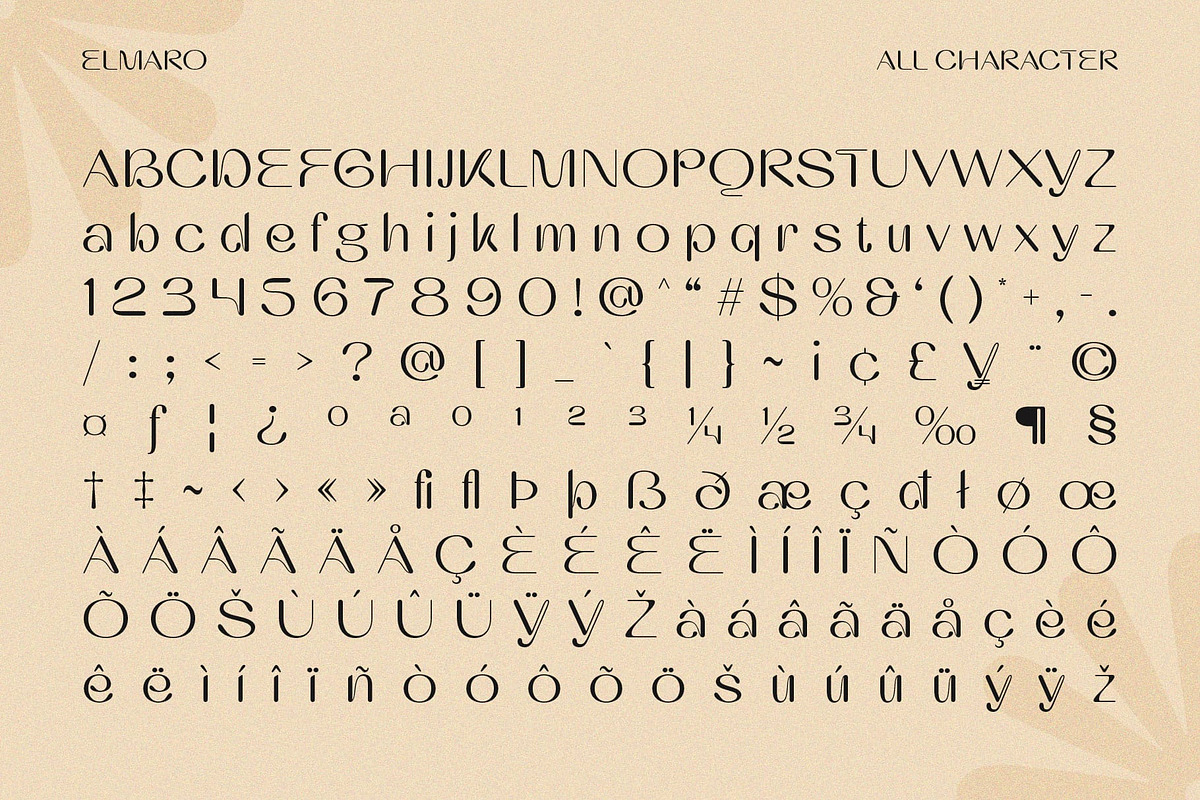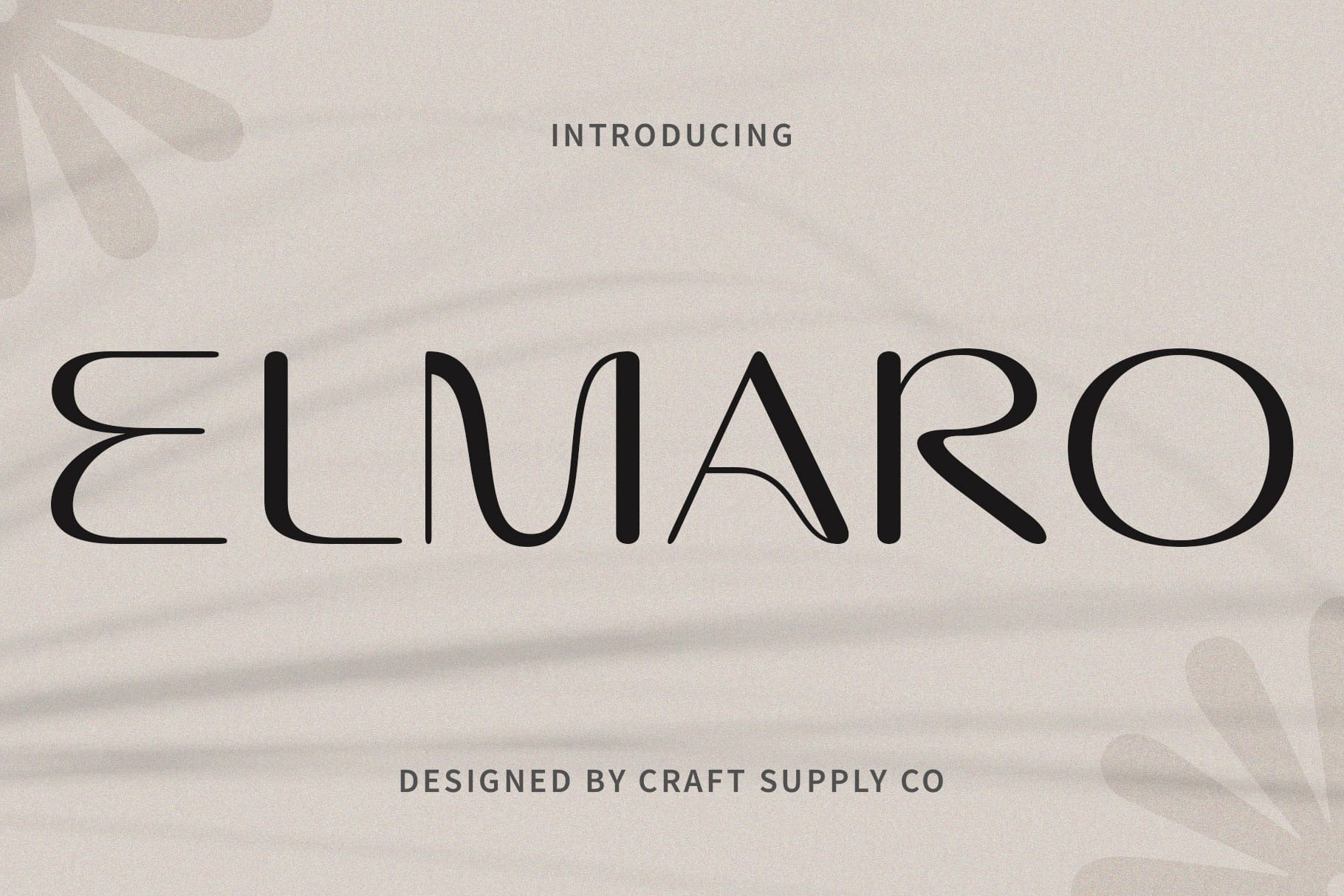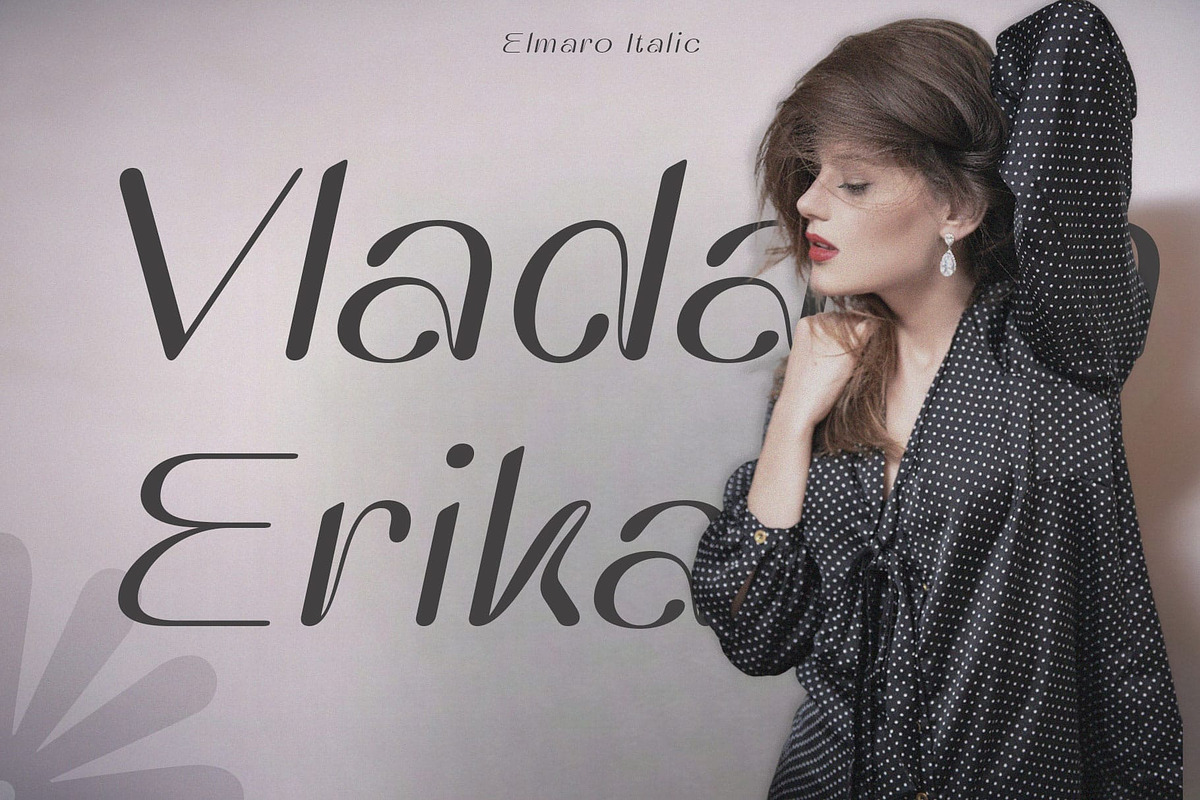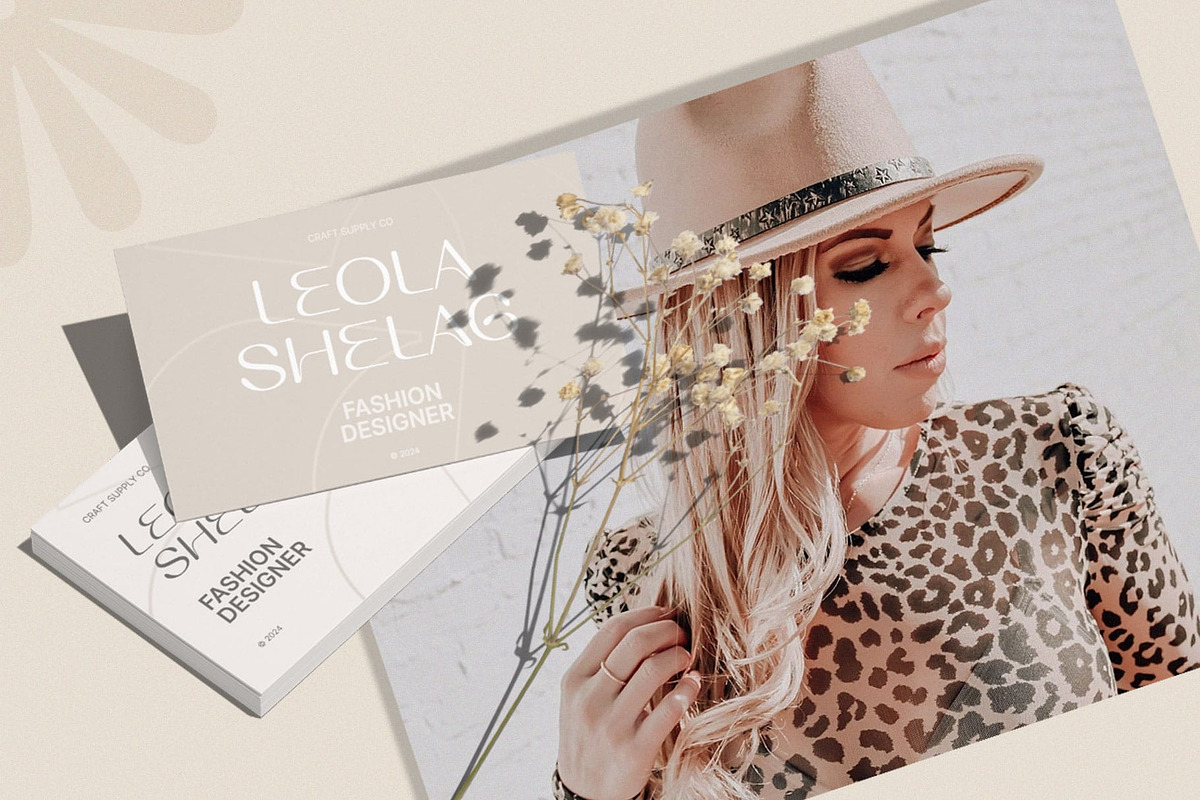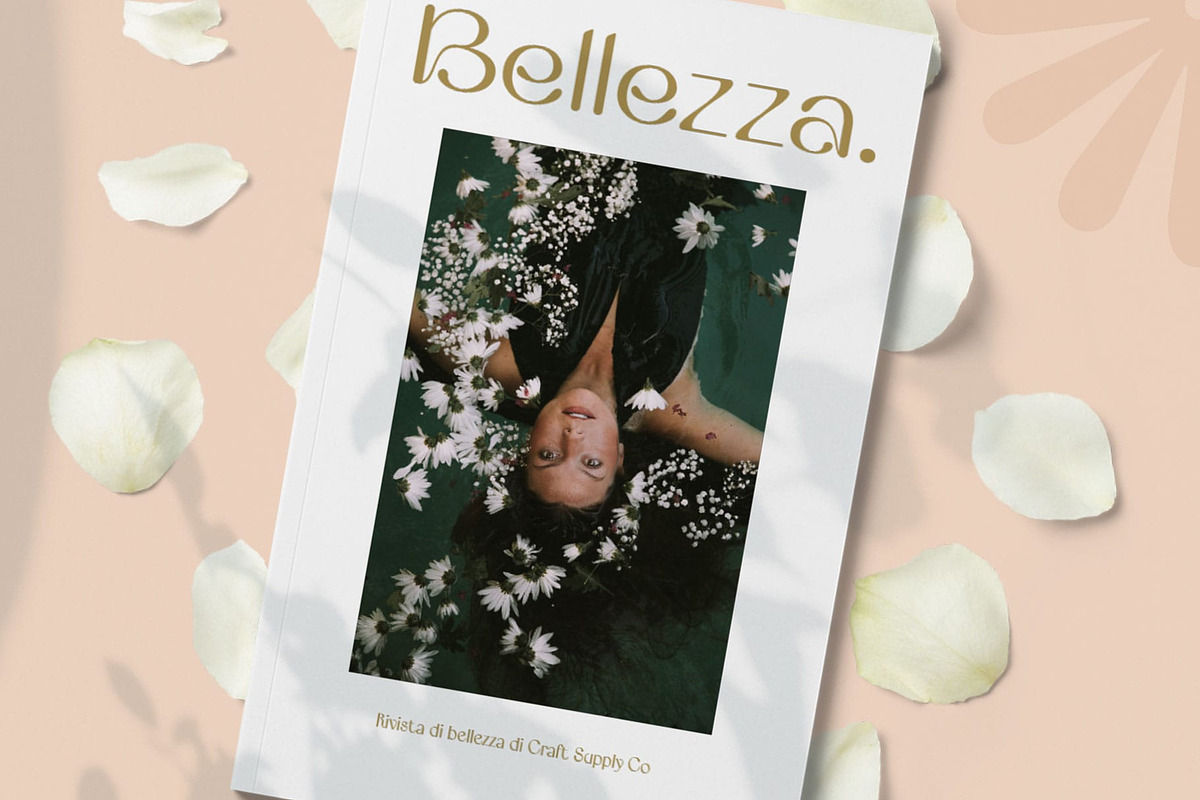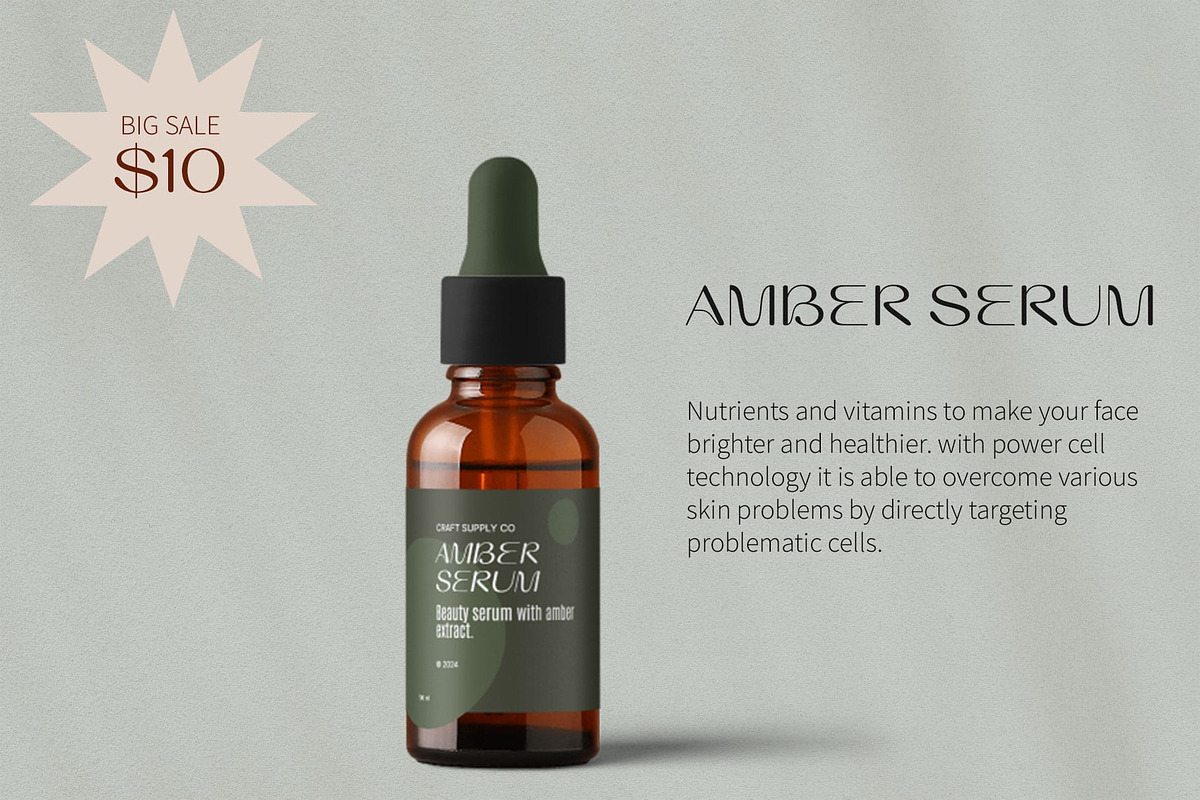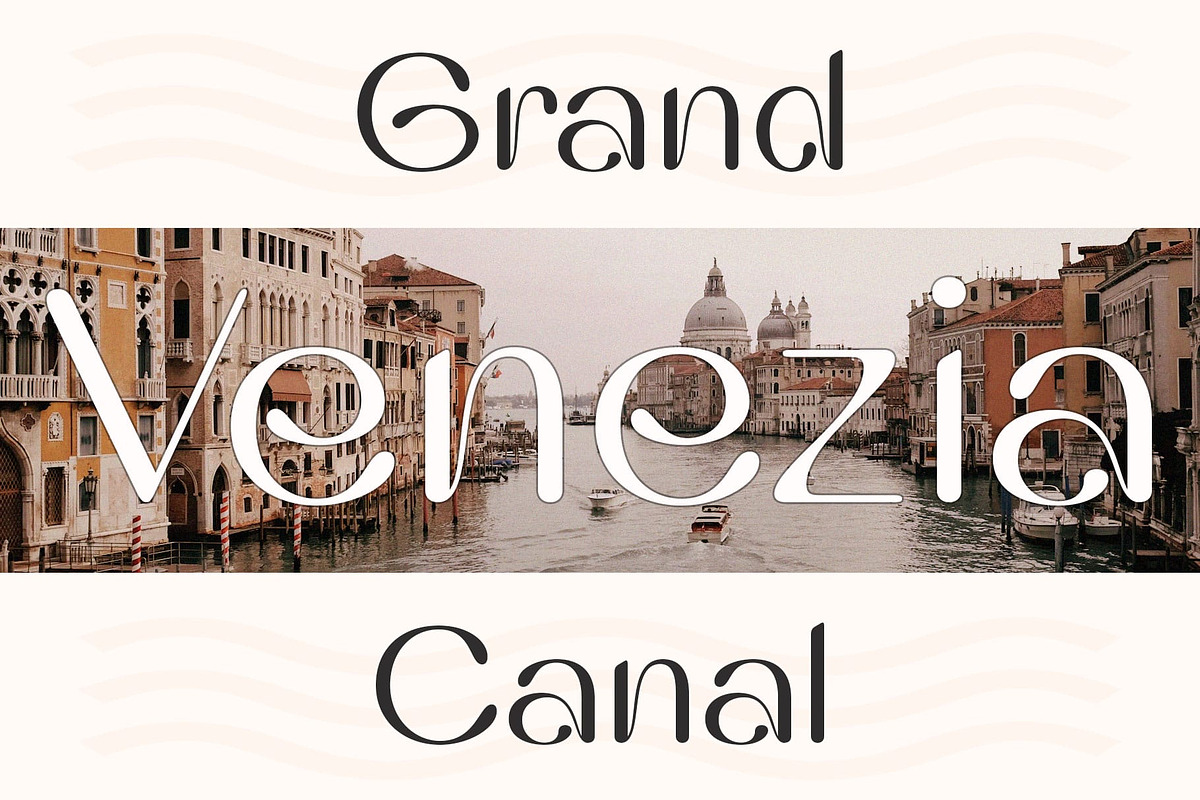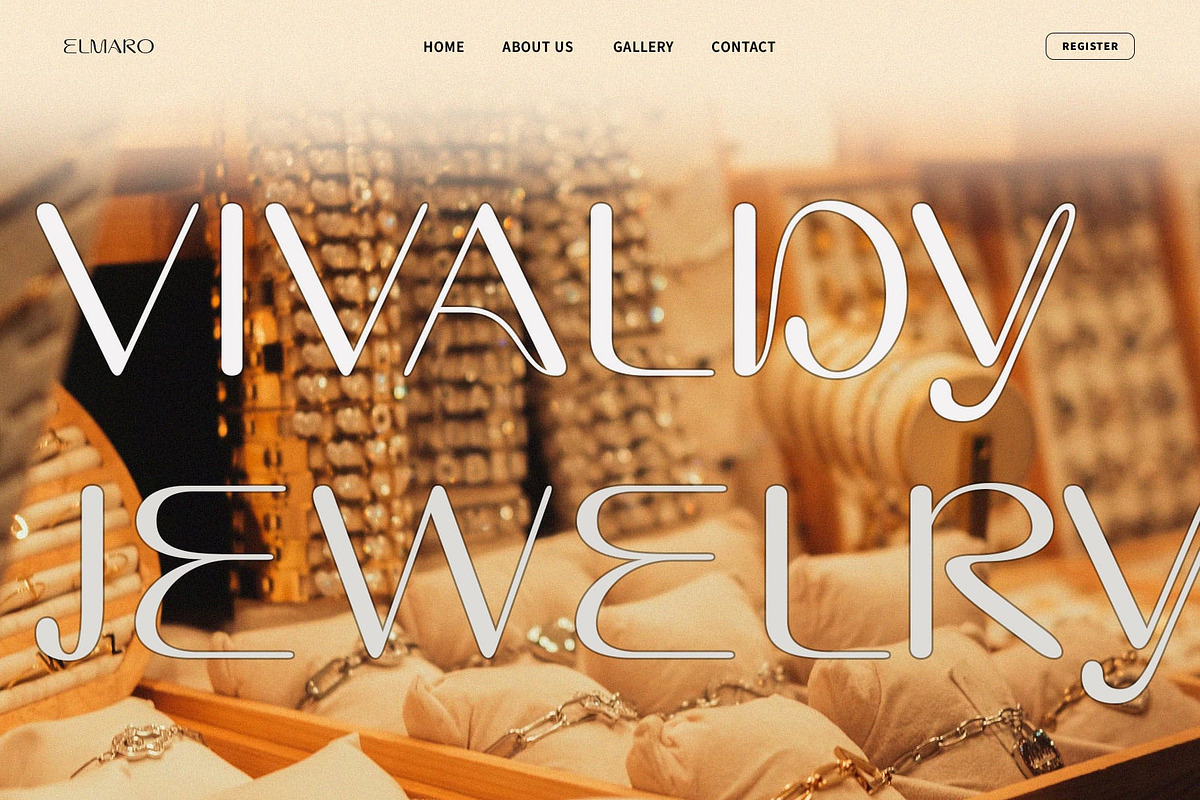
Elmaro – Modern Font
Elmaro Font: Futuristic Typography Inspired by Alien Aesthetics
Sleek and Futuristic Design Elmaro presents a cutting-edge display font with sleek, modern lines inspired by the iconic aesthetics of science fiction film aliens.
Innovative Alien Inspiration Drawing inspiration from the otherworldly visuals of alien spacecraft and technology, Elmaro offers a unique and innovative take on contemporary typography.
Perfect for Modern Projects Tailored for modern design projects, Elmaro adds a futuristic flair to various applications, including posters, digital interfaces, and promotional materials.
Captivating Visual Impact With its bold and distinctive shapes, Elmaro ensures a captivating visual impact, making it an ideal choice for projects that demand attention and a touch of the extraordinary.
Embrace the Future Embrace the future of typography with Elmaro. Inspired by the enigmatic world of aliens, this modern font brings a sense of innovation and intrigue to any design project, ensuring your creations stand out in the digital landscape.
- Elmaro Regular
- Elmaro Italic